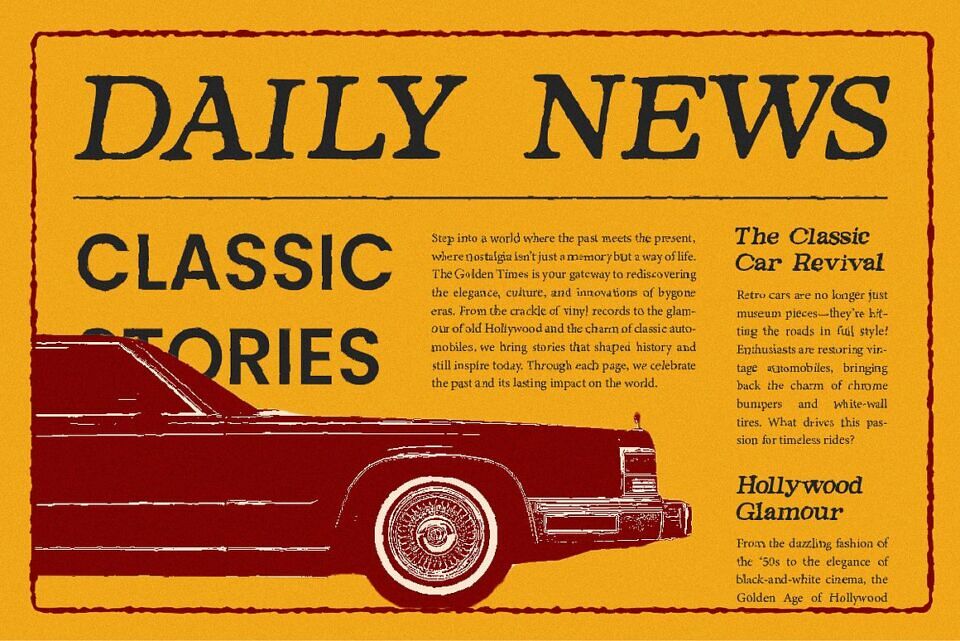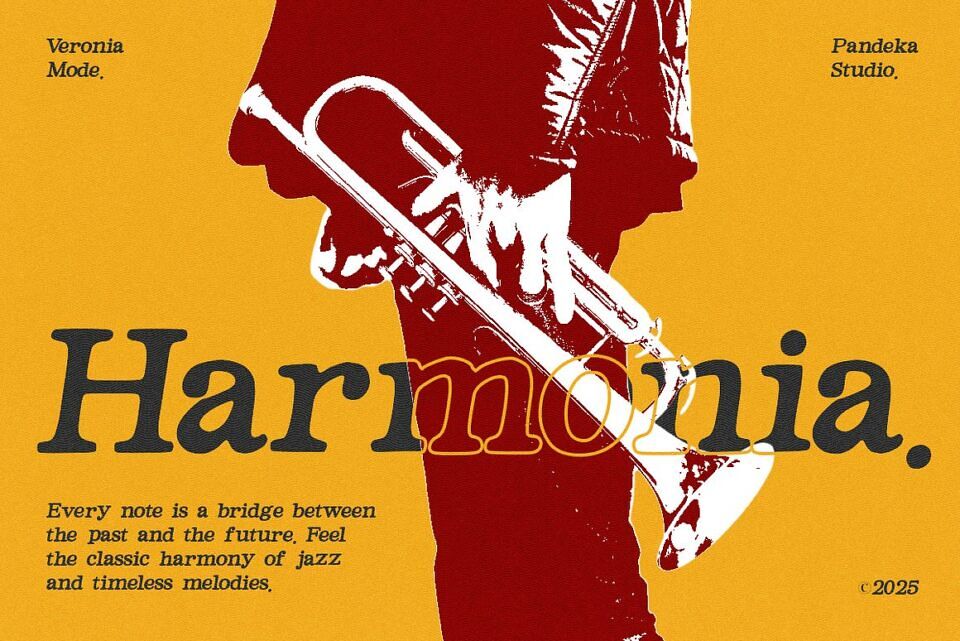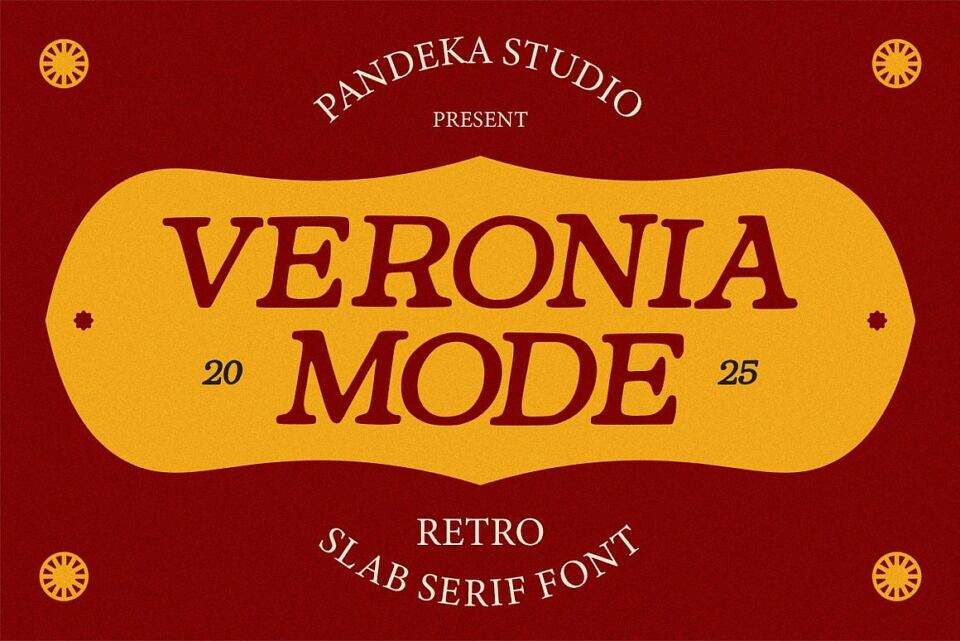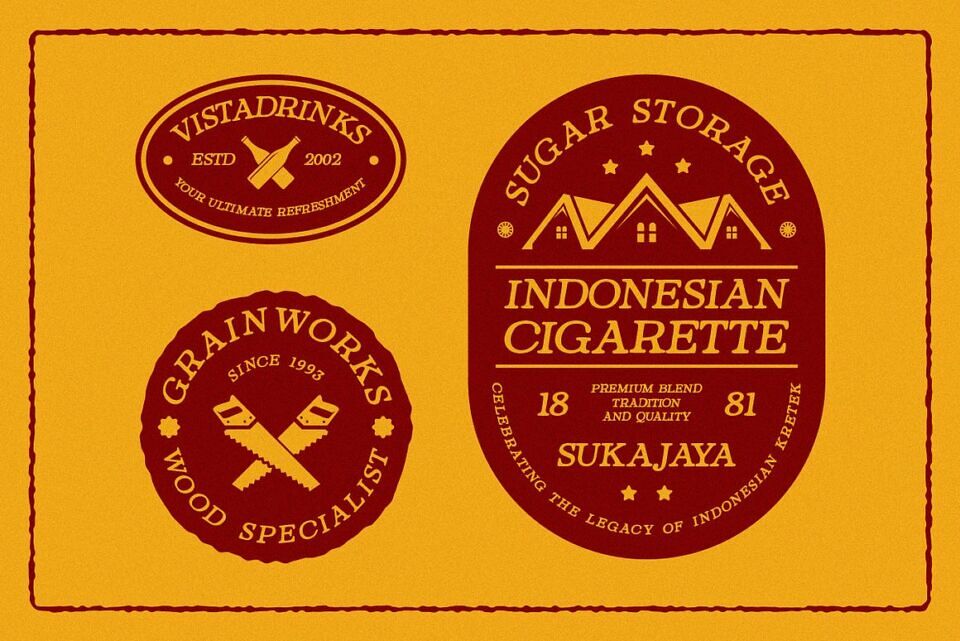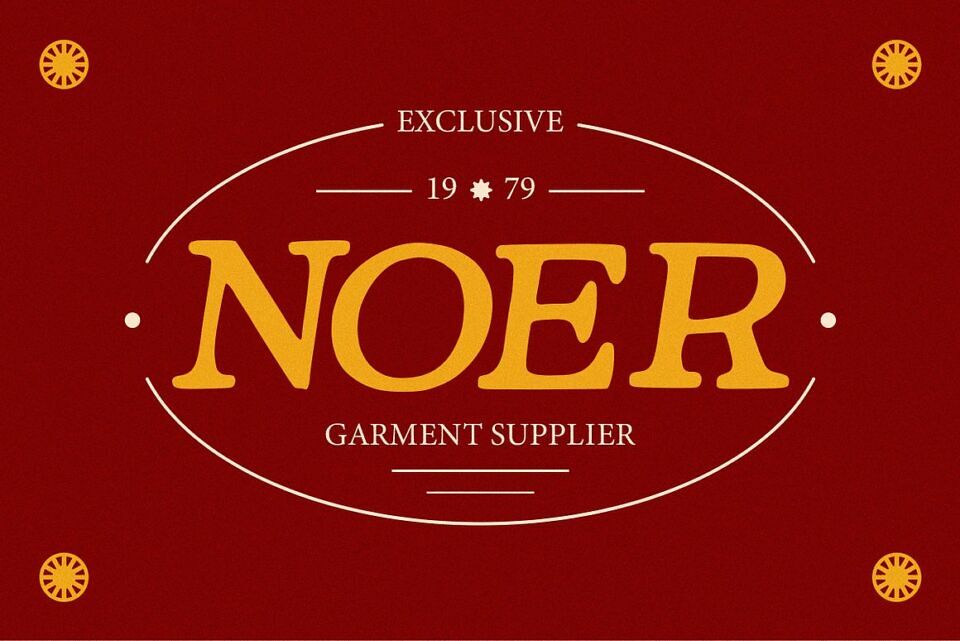
Veronia Mode is a bold retro slab serif with a vintage aesthetic and classic lettering. Its thick serifs and smooth curves bring a timeless yet stylish display to any design. Perfect for branding, posters, signage, editorial design, packaging, and nostalgic themes, Veronia Mode adds a unique, bold typographic presence with a touch of classic charm.